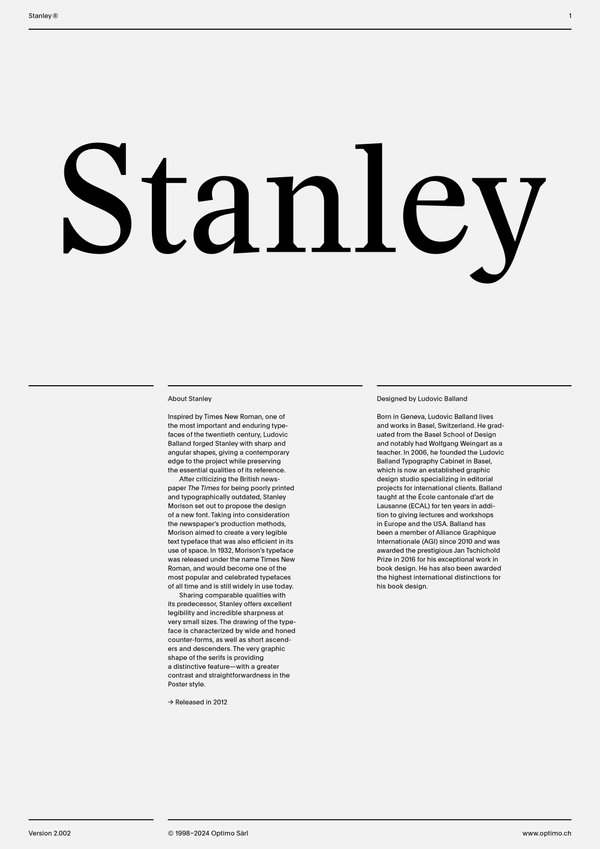
Stanley
Case Sensitive Forms
All Caps [cpsp]
Case Sensitive Forms [case]
This function formats the text in uppercase and adjusts spacing between all capital letters. It also applies the ‘Case Sensitive Forms’ feature which replaces certain characters with alternates that are better suited for all capital text, especially related to punctuation.
Squared numbers [uprights only]
Stylistic Set 1 [ss01]
This feature replaces glyph(s) with stylistic alternate(s).
Squared numbers left [uprights only]
Stylistic Set 2 [ss02]
This feature replaces glyph(s) with stylistic alternate(s).
Squared numbers right [uprights only]
Stylistic Set 3 [ss03]
This feature replaces glyph(s) with stylistic alternate(s).
Tabular Lining Figures
Tabular Lining Figures [tnum–lnum]
Based on the proportions of the capitals, lining figures have an invariable height. With the combination of the tabular spacing format, the width of each numeral is uniformized. This feature is useful when numerals need to all lined up. It facilitates the reading of numbers set within columns or tables. As some applications don’t have access to this feature, proportional figures are set as the default choice.
Proportional Oldstyle Figures
Proportional Oldstyle Figures [pnum–onum]
Based on the design of the lowercase, oldstyle figures have varying ascenders and descenders. Like most of the letters, each number has an appropriate width based on its shape. The combination of oldstyle figures with proportional setting generate numerals perfectly adapted for text.
Tabular Oldstyle Figures
Tabular Oldstyle Figures [tnum–onum]
Based on the design of the lowercase, oldstyle figures have varying ascenders and descenders. With the combination of the tabular spacing format, the width of each numeral is uniformized. This feature is useful when numerals need to all lined up. It facilitates the reading of numbers set within columns or tables.
Fractions
With this feature, any numbers separated by a slash will automatically turn into a fraction. To fit in fraction configuration, numerals have been designed smaller and their weights have been adjusted to suit the typeface.
Lowercase math symbols
Stylistic Set 6 [ss06]
This feature activates alternate lowercase positioning of mathematical symbols.
This feature replaces any letter following a numeral with its matching superior letters. French language uses the ordinal indicators such as ‘er’ for 1er premier, while Spanish, Portuguese and Italian require the feminine and masculine ordinals ‘a,’ ‘o’ for 1º, 1ª. Ordinals are designed to match the weight of the typeface.
Slashed Zero
Slashed Zero [zero]
Originally created to avoid the confusion between the ‘0’ and the ‘O’, this feature substitutes all zeros in a selected text by a slashed form of the zero.
Slashed Zero Oldstyle
Slashed Zero [zero]
Originally created to avoid the confusion between the ‘0’ and the ‘O’, this feature substitutes all zeros in a selected text by a slashed form of the zero.
Proportional Oldstyle Figures [onum]
Tabular figures are all of equal width. They are only needed when the figures must all line up from one line to the next, as in a table. Proportional figures have varying widths, just like most letters; each number has a width appropriate to its design. Lining figures are all the same height, usually similar to that of capital letters. They are needed for use with all-capital settings.
Multiply sign
Stylistic Set 20 [ss20]
This feature substitutes the letter “x” into the multiplication sign.
Numerators [numr]
This feature substitutes glyphs with their matching smaller alternates. The numerators are the same glyphs that are used to create fractions, their vertical position remains within the capital letters height. These glyphs are reduced in size and designed slightly heavier to keep them consistent with the rest of the font.
This feature substitutes glyphs with their matching smaller alternates and low position glyphs. The denominators are the same glyphs that are used to create fractions, their vertical position remains within the base line. These glyphs are reduced in size and designed slightly heavier to keep them consistent with the rest of the font.
Sharing comparable qualities with its predecessor, Stanley offers excellent legibility and incredible sharpness at very small sizes. The drawing of the typeface is characterized by wide and honed counter-forms, as well as short ascenders and descenders. The very graphic shape of the serifs is providing a distinctive feature—with a greater contrast and straightforwardness in the Poster style.